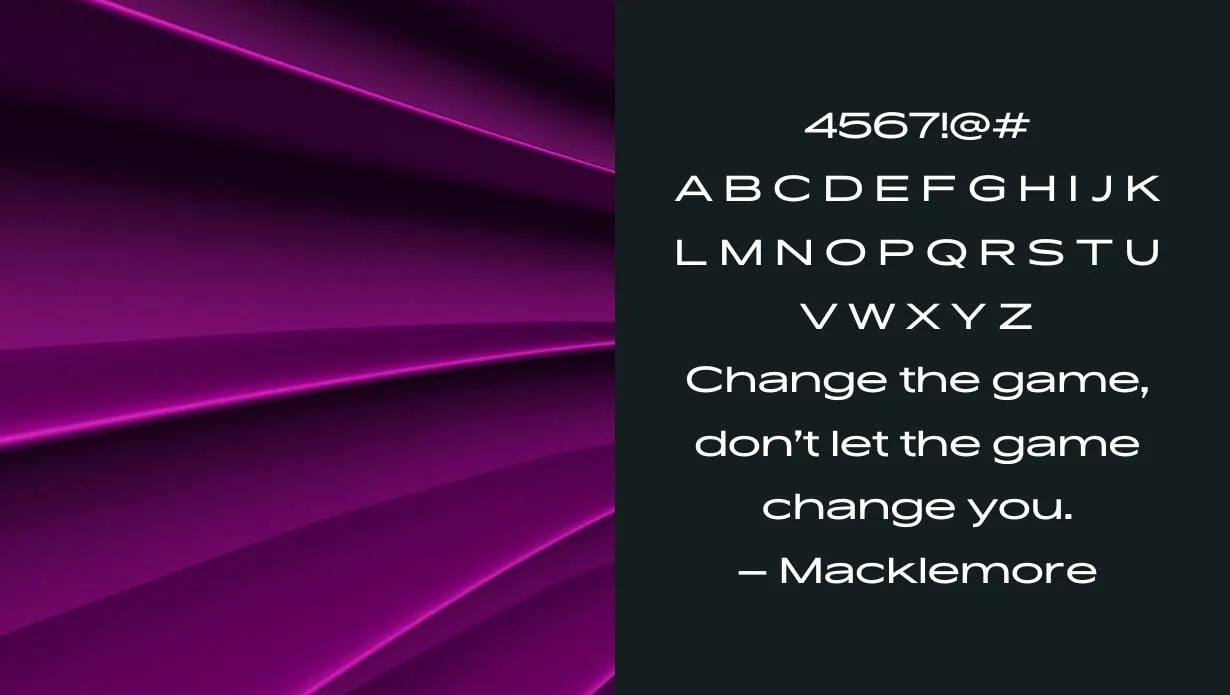
Pano Font is a sans-serif typeface created by Swiss designer Max Miedinger in 1957. The font was released by the Haas Type foundry in Switzerland. It was an immediate success and became one of the most popular typefaces of the 20th century.
The font is known for its clean, modern design and its unique features, such as its oblique strokes and extended character set. This typeface is available in both desktop and Webfont formats. The texturing of this typeface is great to work with the pairing of open sans Font.